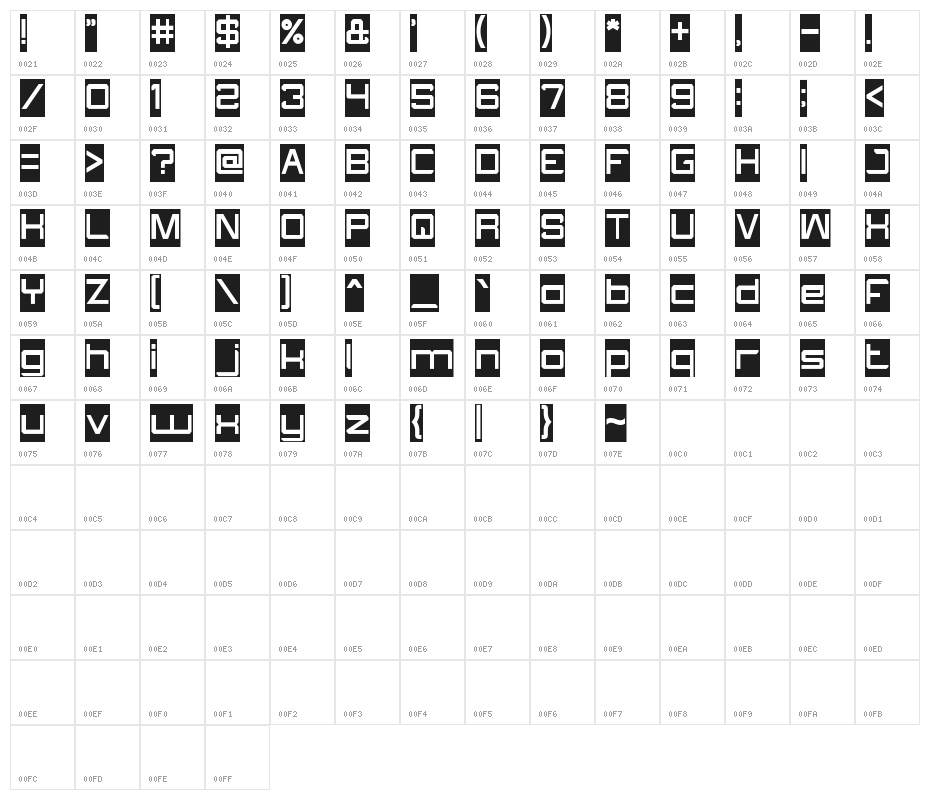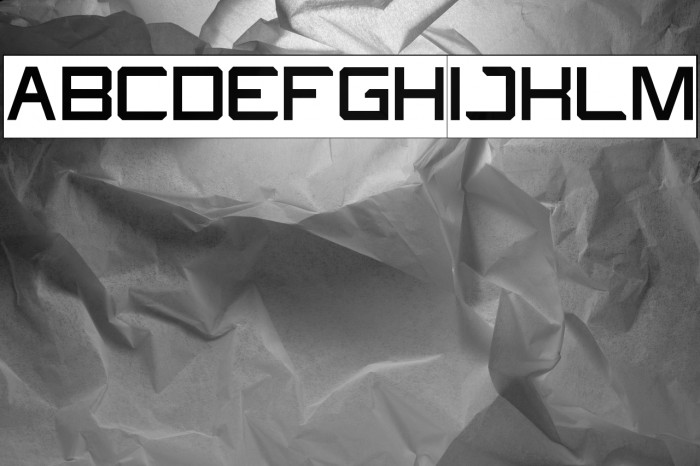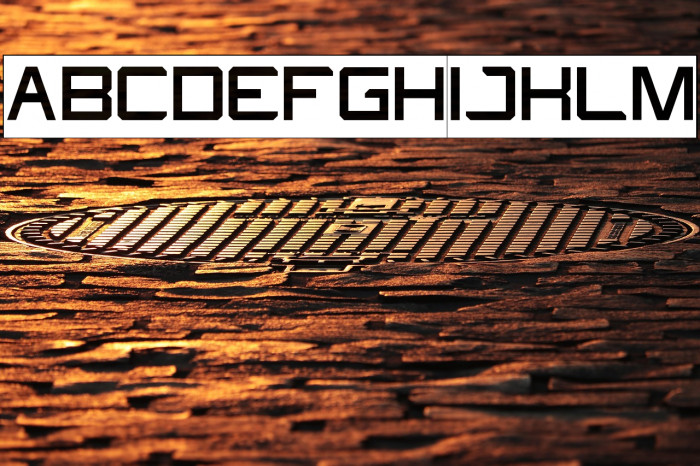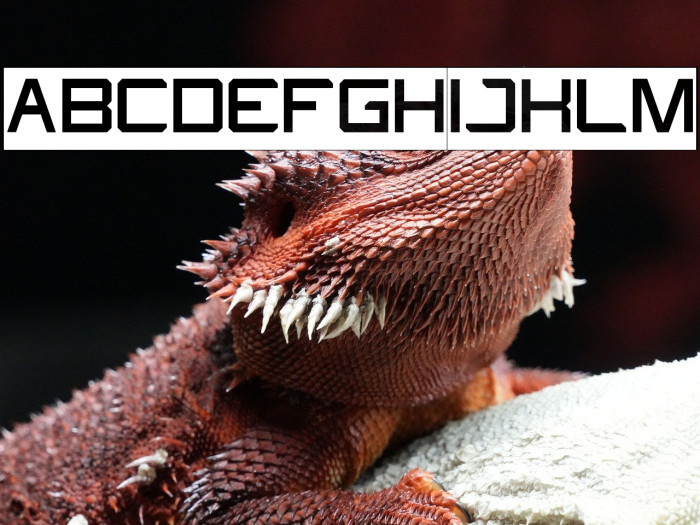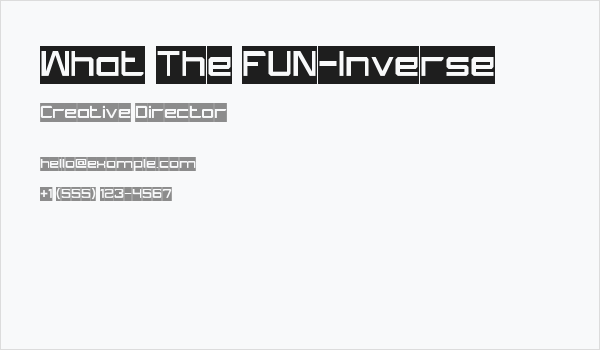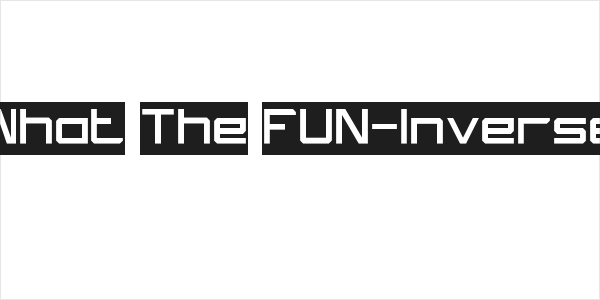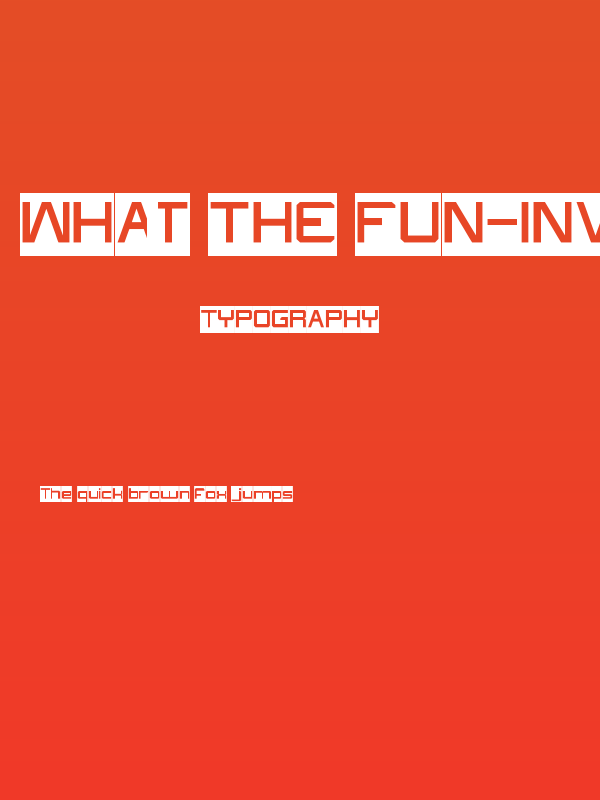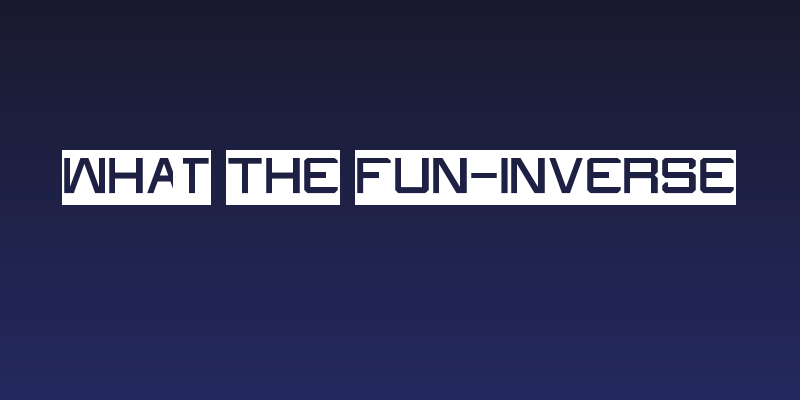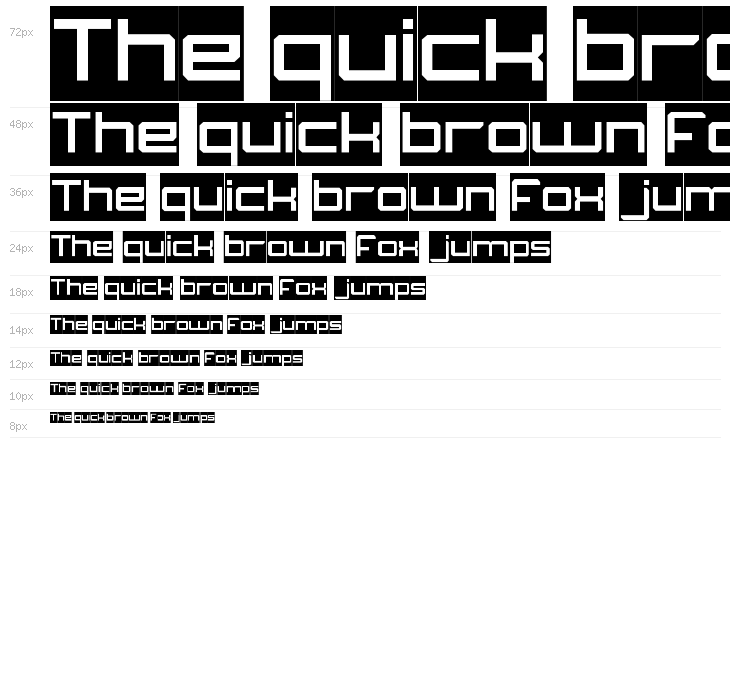
What The FUN-Inverse Font
What The FUN-Inverse Description
This font features a bold, geometric style with a futuristic and digital appearance. The characters are constructed with sharp angles and straight lines, giving them a mechanical and modern look. The uppercase letters are uniform in height, while the lowercase letters maintain a consistent style with slightly reduced height. The numbers and special characters follow the same design principles, ensuring a cohesive appearance across all glyphs. The font's design is highly legible, making it suitable for various digital and print applications. Its unique style is characterized by a strong presence and a sense of technological advancement.
| Proposed Projects | Ideal for technology branding, digital interfaces, video game titles, and futuristic-themed posters. |